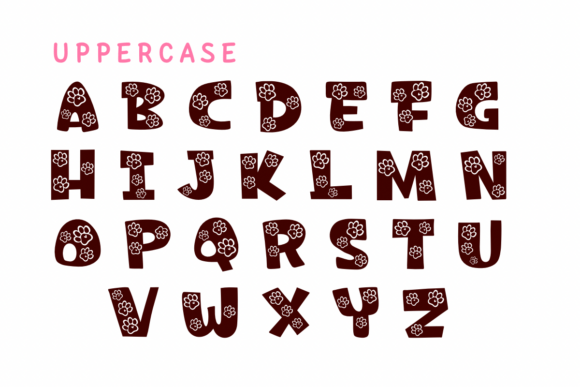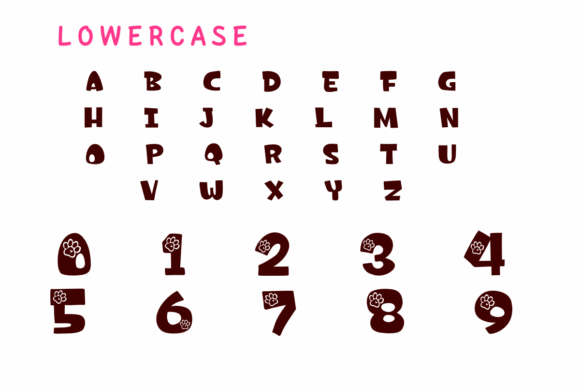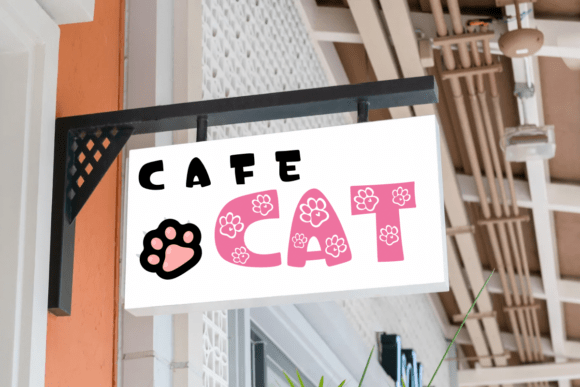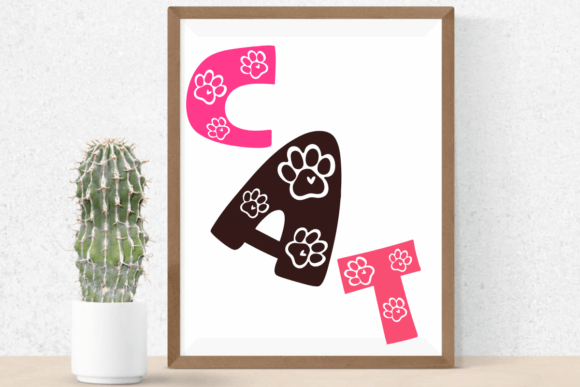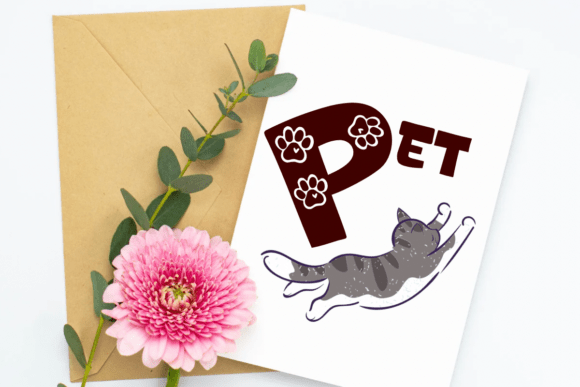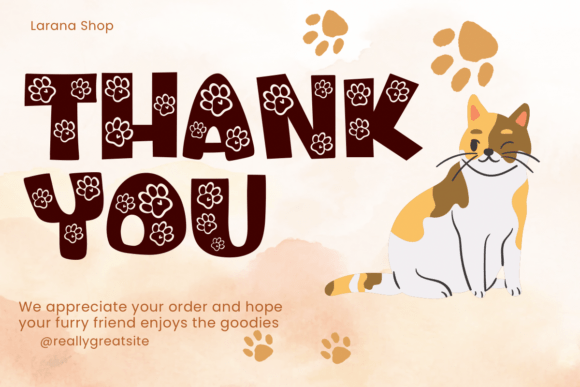
The Purr-fect Font: A Deep Dive into Cat Animal Font
I’ll never forget the time I was working on a project for a pet store client, and I just couldn’t find the right font to capture their playful and adorable vibe. The client wanted something that would appeal to kids and pet lovers alike, and I was determined to deliver. That’s when I stumbled upon the Cat Animal Font, and it was love at first sight! 🐱
This unique decorative font is filled with charming paw prints and playful heart details, making it the perfect pick for kids’ designs, pet branding, or anything that needs a little feline flair. In this article, I’ll share my honest review of the Cat Animal Font, provide a practical guide on how to use it, and explore similar fonts that might tickle your fancy.
• ✨ Adorable paw print and heart details that add a playful touch to any design
• ✅ Unique and eye-catching, perfect for making a statement
• 💕 Great for kids’ designs, pet branding, and any project that needs a touch of whimsy
• 🎉 Easy to use and pairs well with a variety of fonts and design styles
⚠️ While the Cat Animal Font is incredibly versatile, it’s not suitable for body text or long-form content. Its decorative nature makes it best suited for headings, titles, and short phrases.
🤔 Some users might find the font a bit limited in terms of styling options, but this is where exploring OpenType features and glyphs comes in handy!
One of the best things about the Cat Animal Font is its OpenType features and glyphs. These allow you to customize your text with different paw print styles, heart details, and even alternative letterforms. To access these features:
The Designer Inspiration Behind Cat Animal Font
According to the font’s designer (let’s call her a cat lover and creative genius 😸), the Cat Animal Font was inspired by her own feline friends and a passion for illustration. She wanted to create a font that would bring a smile to people’s faces and add a touch of whimsy to their designs.